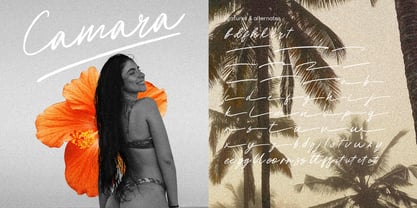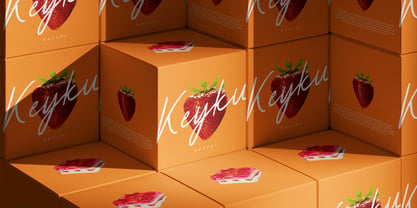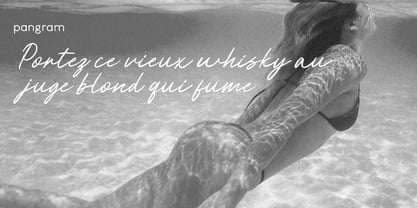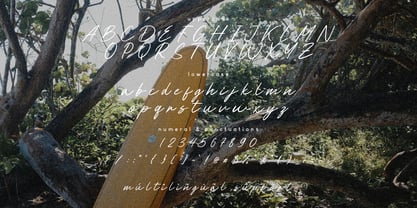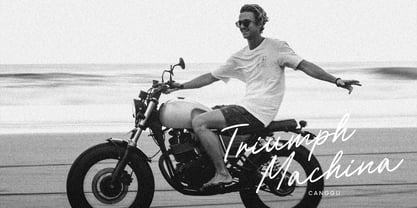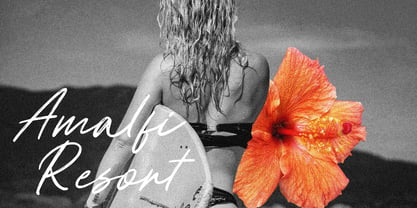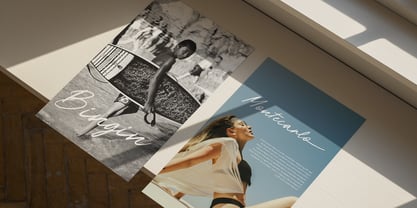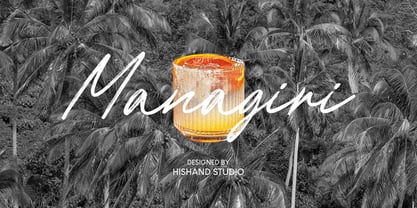
Managiri
The Managiri Font Family was designed by Putu Dody Permana and published by Hishand Studio. Managiri contains 1 styles. More about this family
Managiri is a script brush font that captures the spirit of tropical elegance with a relaxed, artistic touch. Designed with flowing strokes and natural brush textures, Managiri brings a sense of warmth, movement, and handcrafted beauty to any design. Each letter features expressive curves and slightly irregular edges, giving the font an authentic hand-painted feel that feels both organic and refined. Inspired by tropical landscapes and carefree island aesthetics, Managiri balances bold brush energy with soft, graceful forms. The result is a typeface that feels lively yet beautiful, perfect for projects that want to stand out while keeping a natural and inviting look. Managiri works wonderfully for branding, logos, packaging, social media graphics, and creative headlines. Its aesthetic tropical style adds personality without sacrificing readability, making it suitable for both modern and artistic layouts. Complete with - uppercase - lowercase - ligatures - alternates - multilingual support